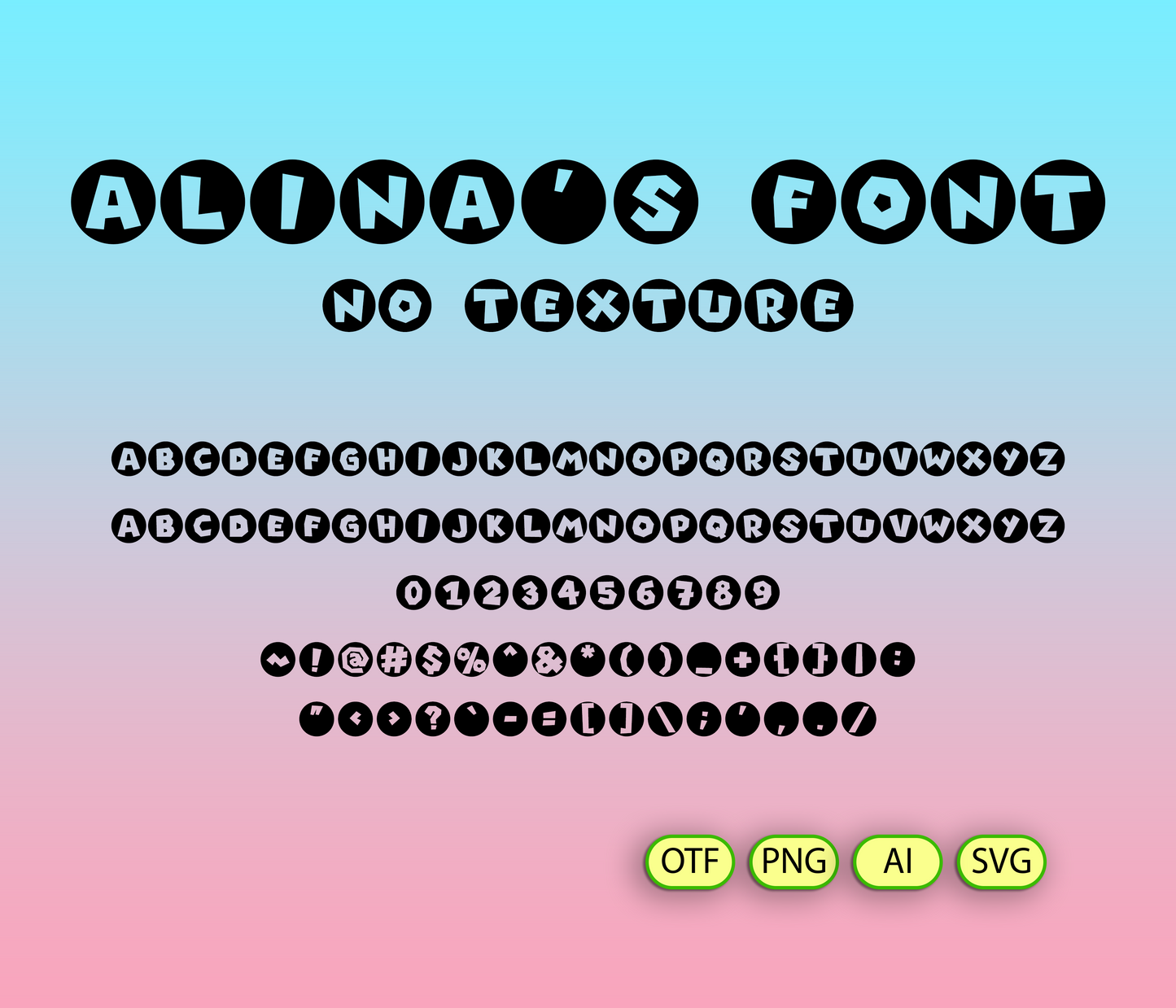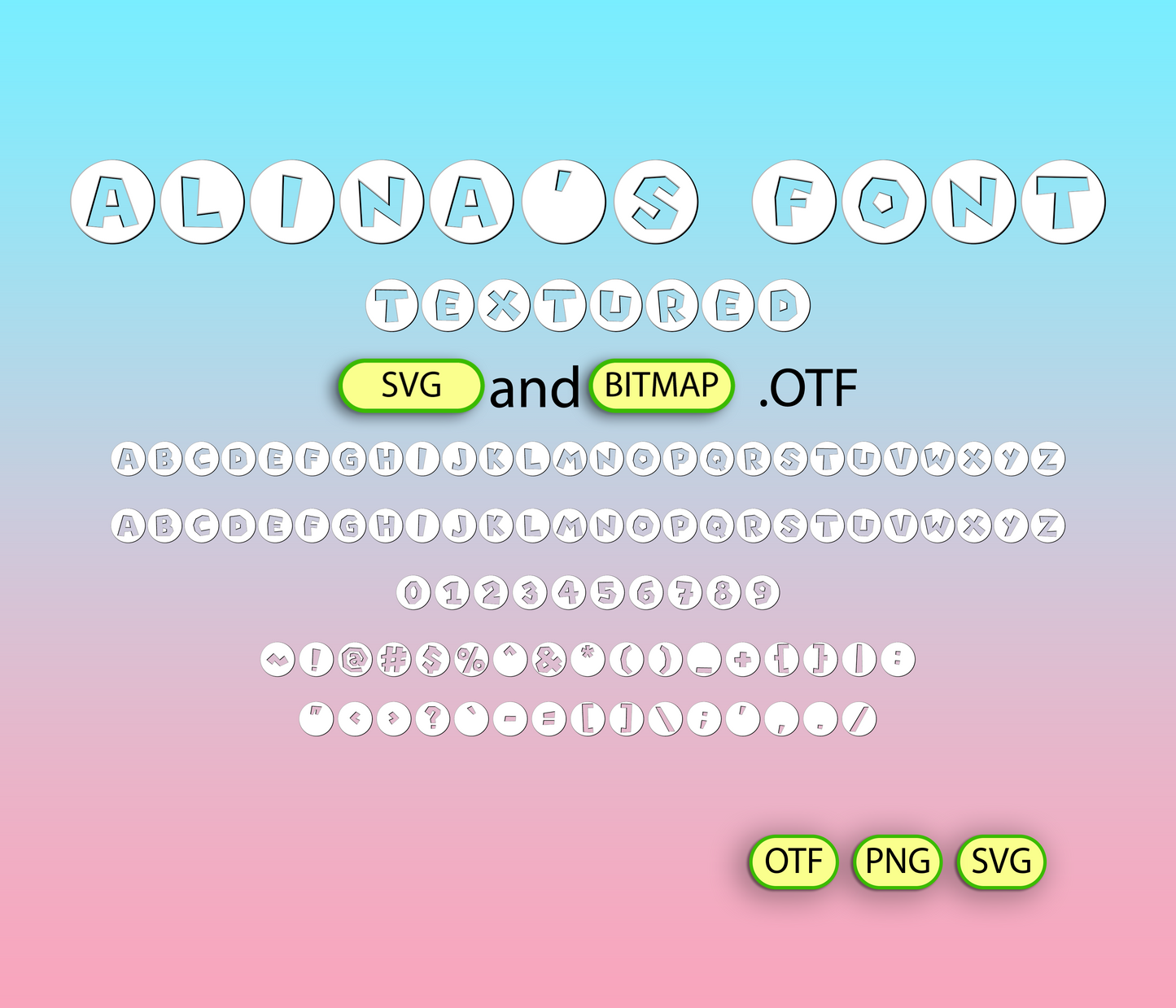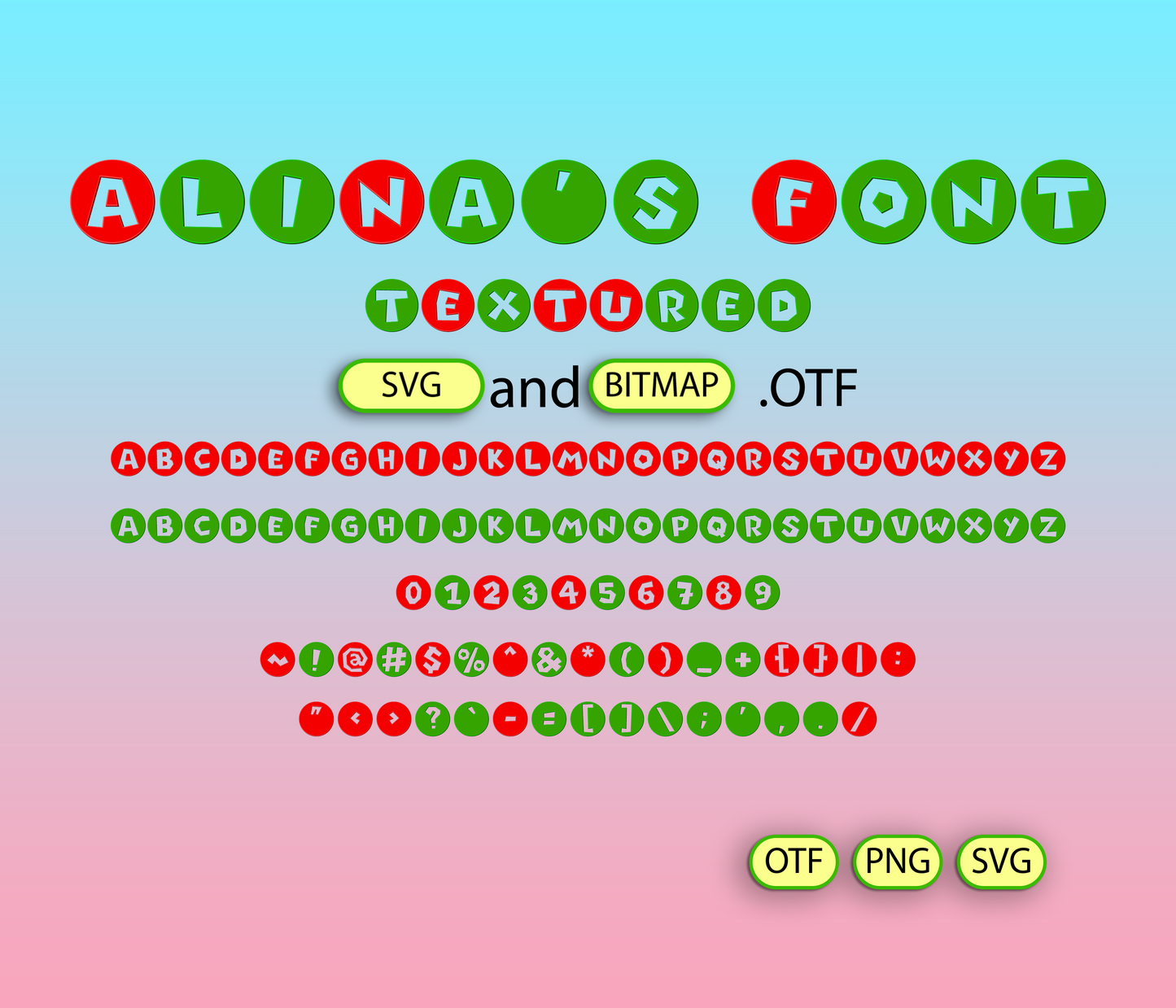
Plumbing Brothers Quest Font Textured Bundle
Bounce into the magical universe of two heroic sibling maintainers with our Plumbing Brothers Quest font. This spirited typeface celebrates the adventures of mustached twins through enchanted realms filled with golden coins, mystery blocks, and warp tunnels. Perfect for projects that embrace the joy of side-scrolling classics and jumping adventures.
Our Plumbing Brothers Quest font features delightful, block-inspired characters with a touch of green and red charm, capturing the essence of family-friendly gaming adventures. Ideal for:
The Plumbing Brothers Quest font includes both textured and non-textured variants, ensuring compatibility with all design software, including popular online design platforms. This feature allows for easy incorporation into designs for users of all skill levels.
From promotional materials for gaming festivals to merchandise design for platformer fans, or adding a touch of mushroom realm magic to personal projects, this font effectively communicates the joy and excitement of classic duo adventures. Ready to power up your creations with the spirit of brotherhood quests? This font is your invincibility star to playful, engaging design.